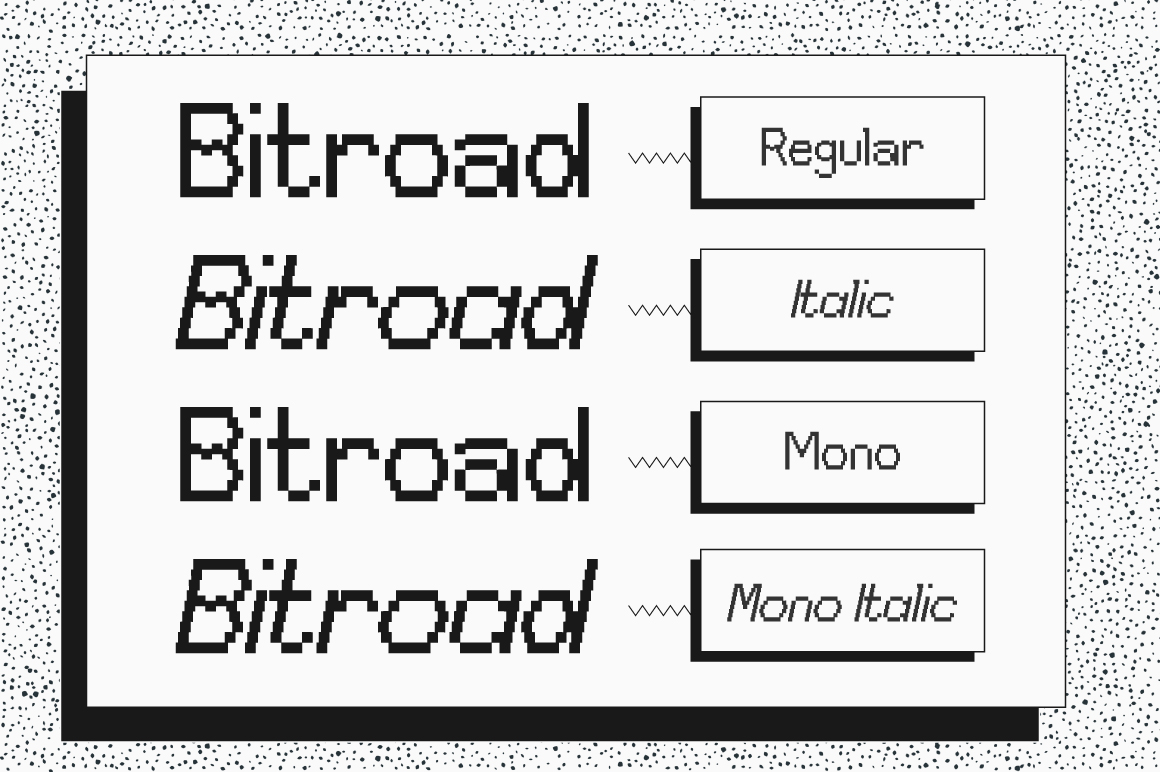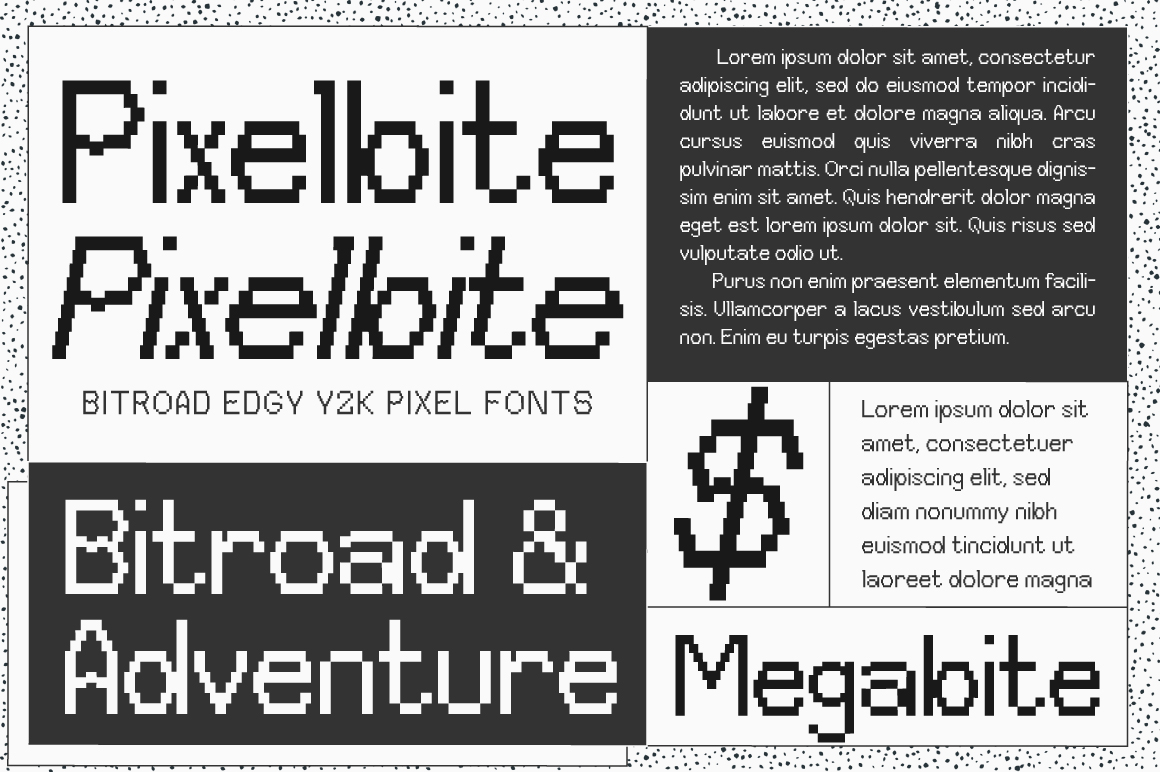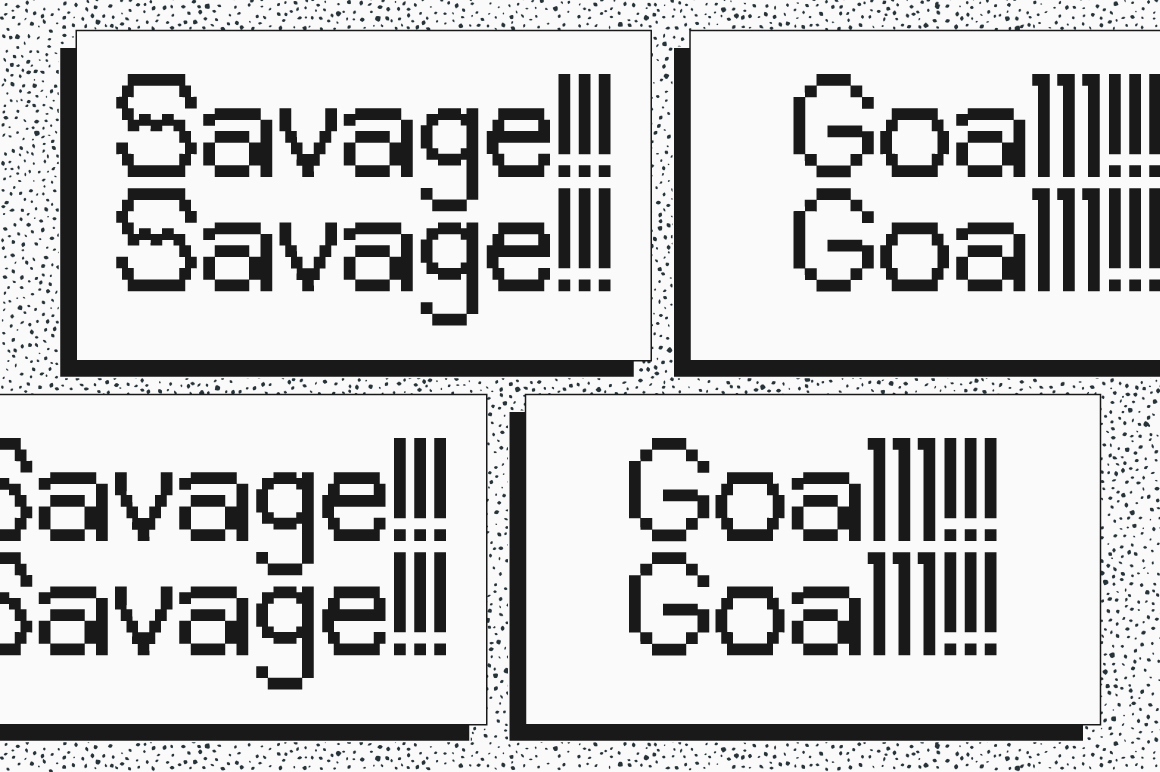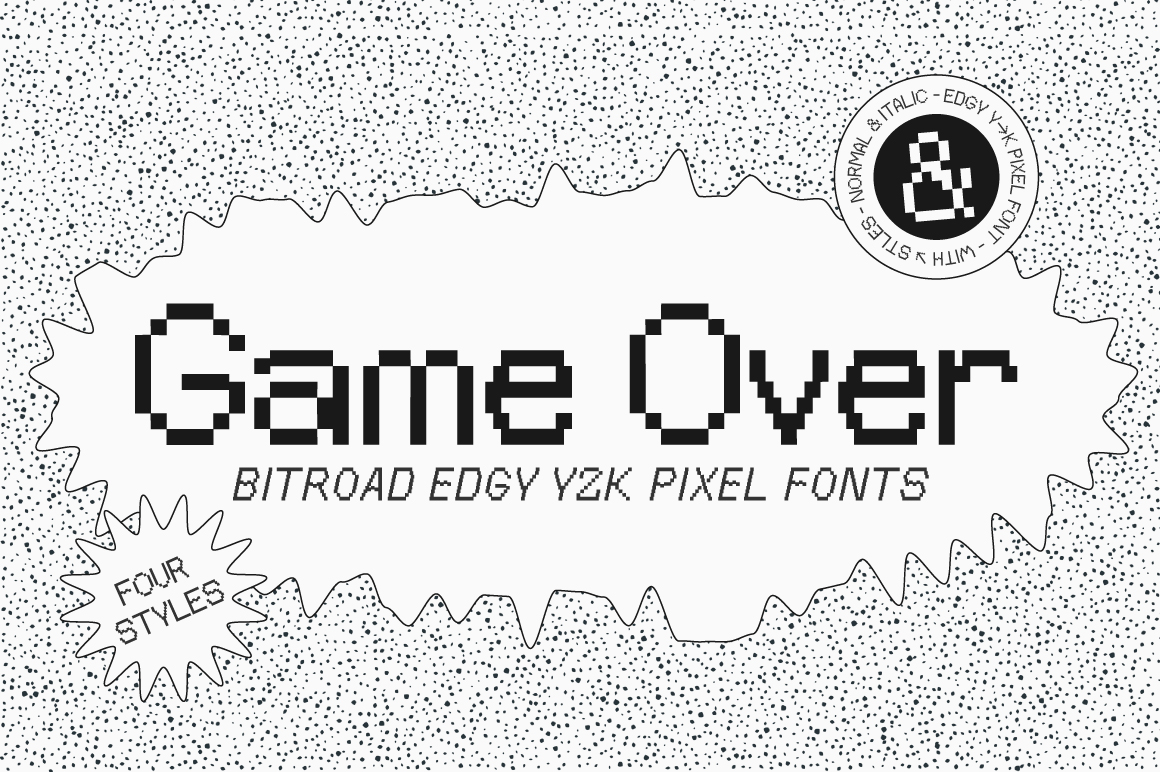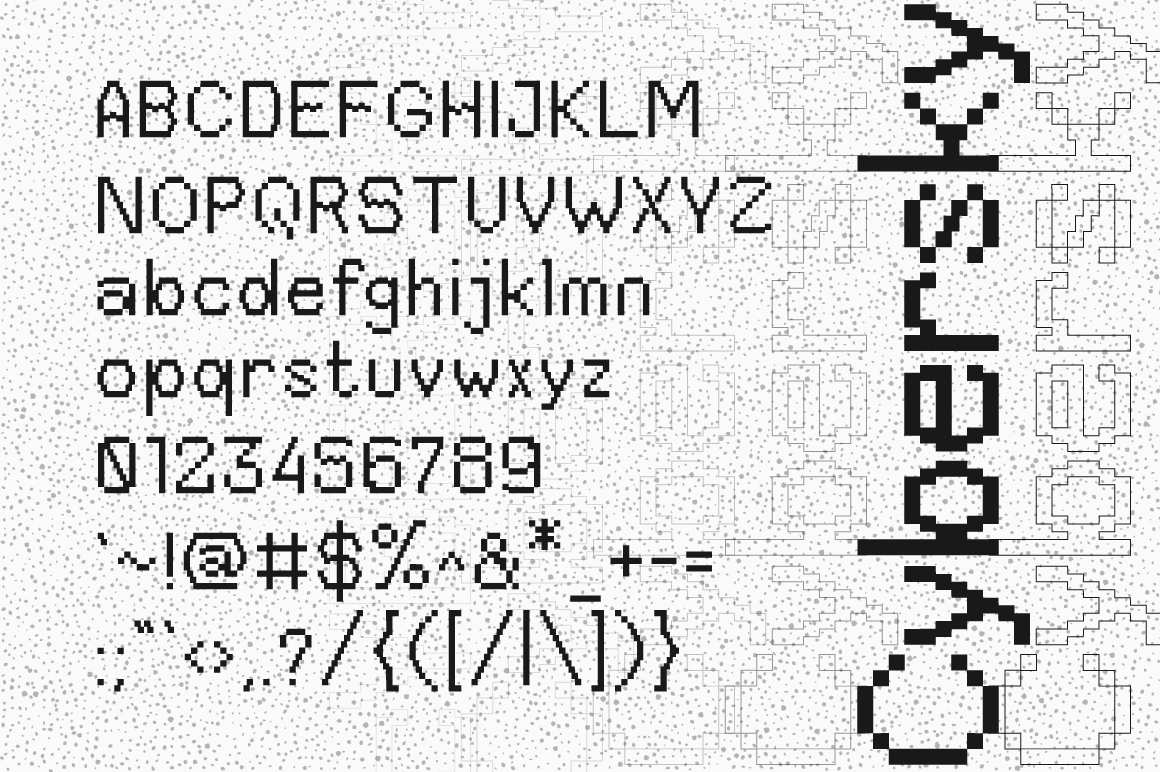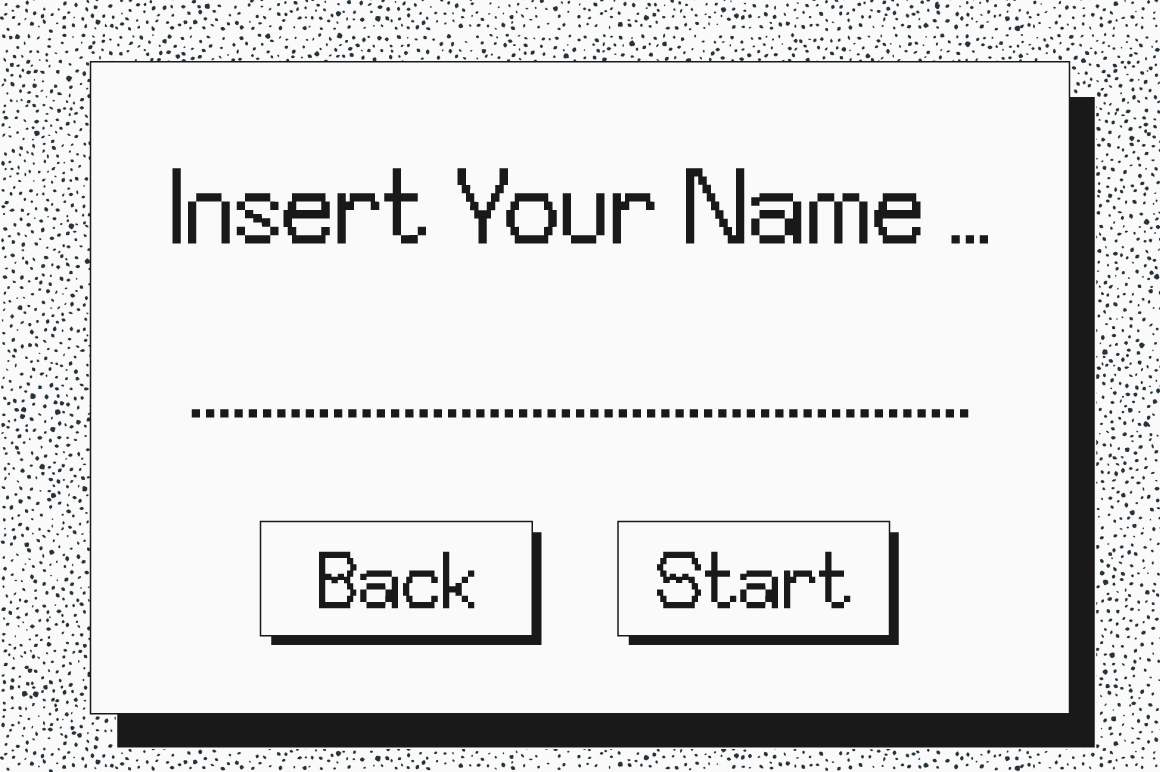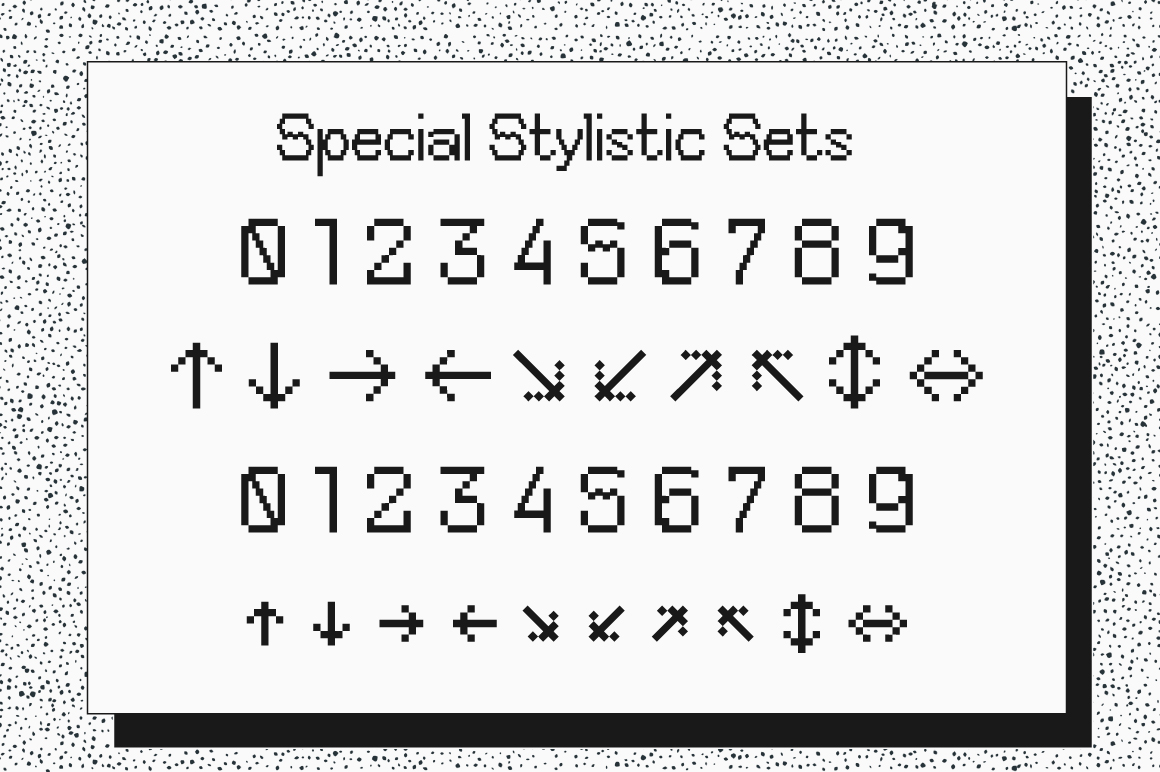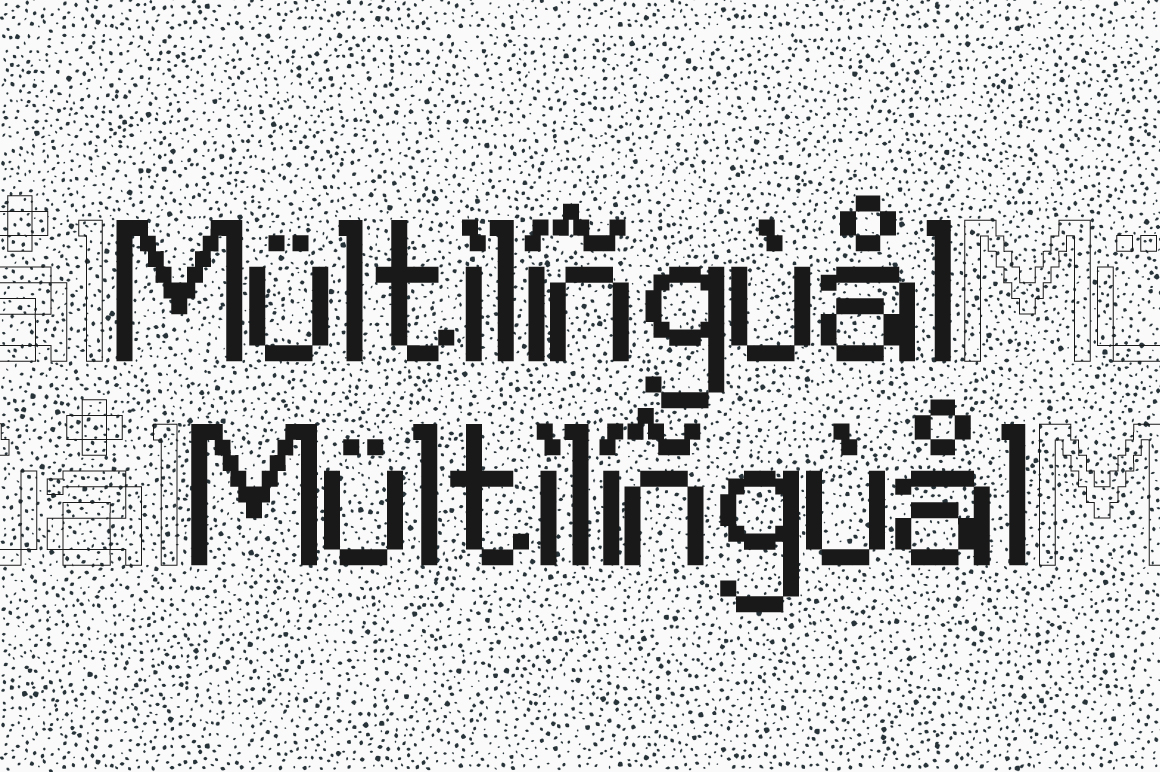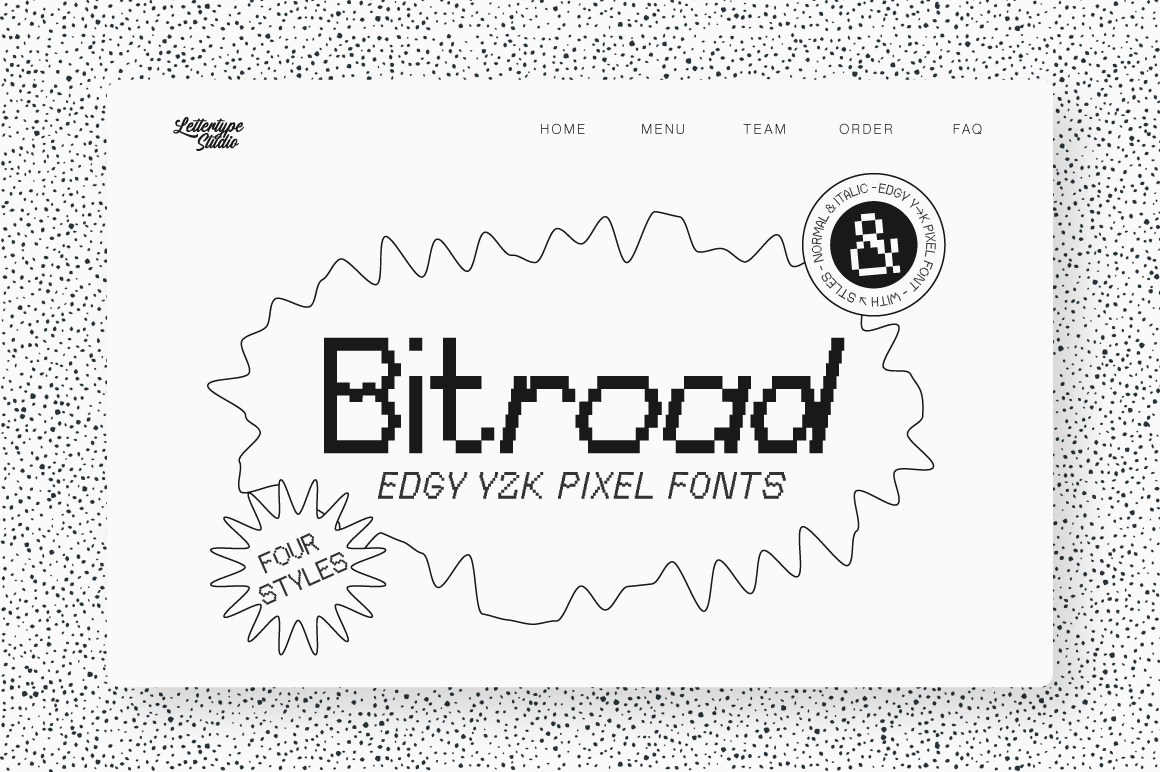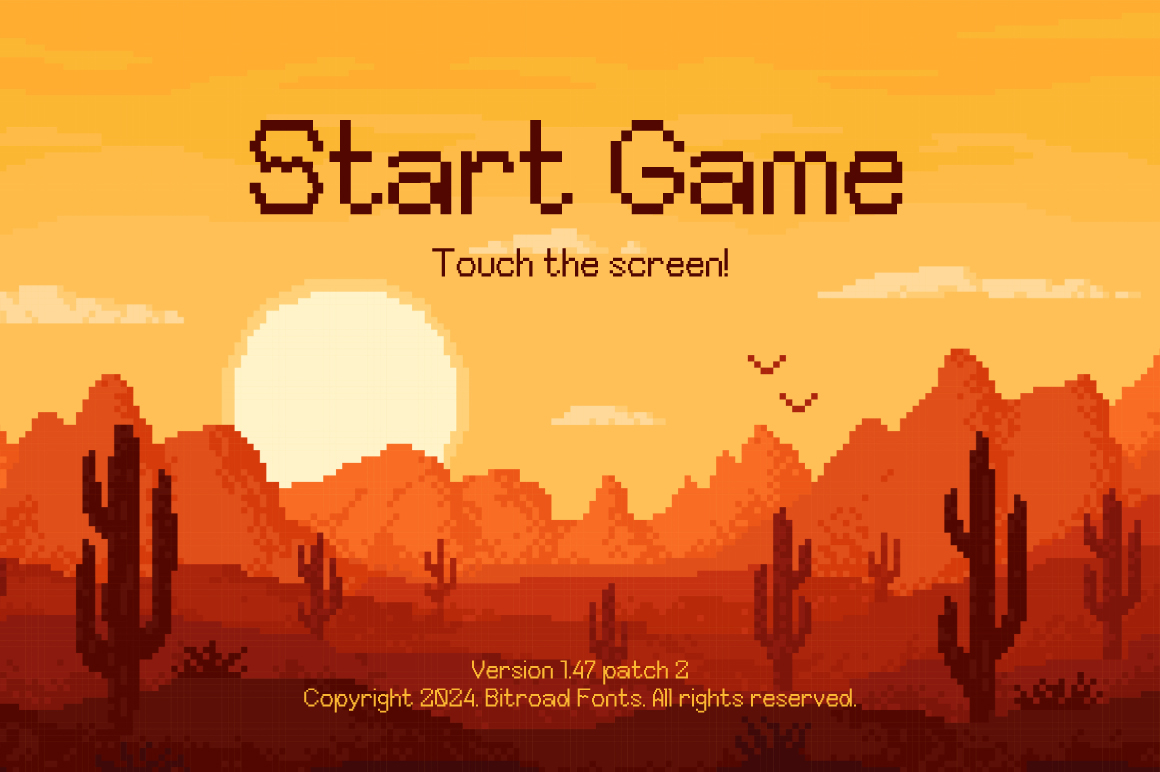
Bitroad is a pixel Y2K display font that fuses the digital aesthetics of the 1980s and 2000s. Designed for retro-tech and nostalgic projects, its crisp edges and monospaced balance make it perfect for games, interfaces, and futuristic branding.
With four styles — Normal, Italic, Monospaced, and Mono-Italic — Bitroad gives designers flexibility to mix vintage energy with modern layouts. Ideal for logos, pixel art, posters, and digital typography, it brings a playful yet professional retro flair to any creative project.
- Lowercase & Uppercase
- Numerals & Punctuation
- Alternates & Ligature
- Multilingual Support
- Font Family (4 Styles)